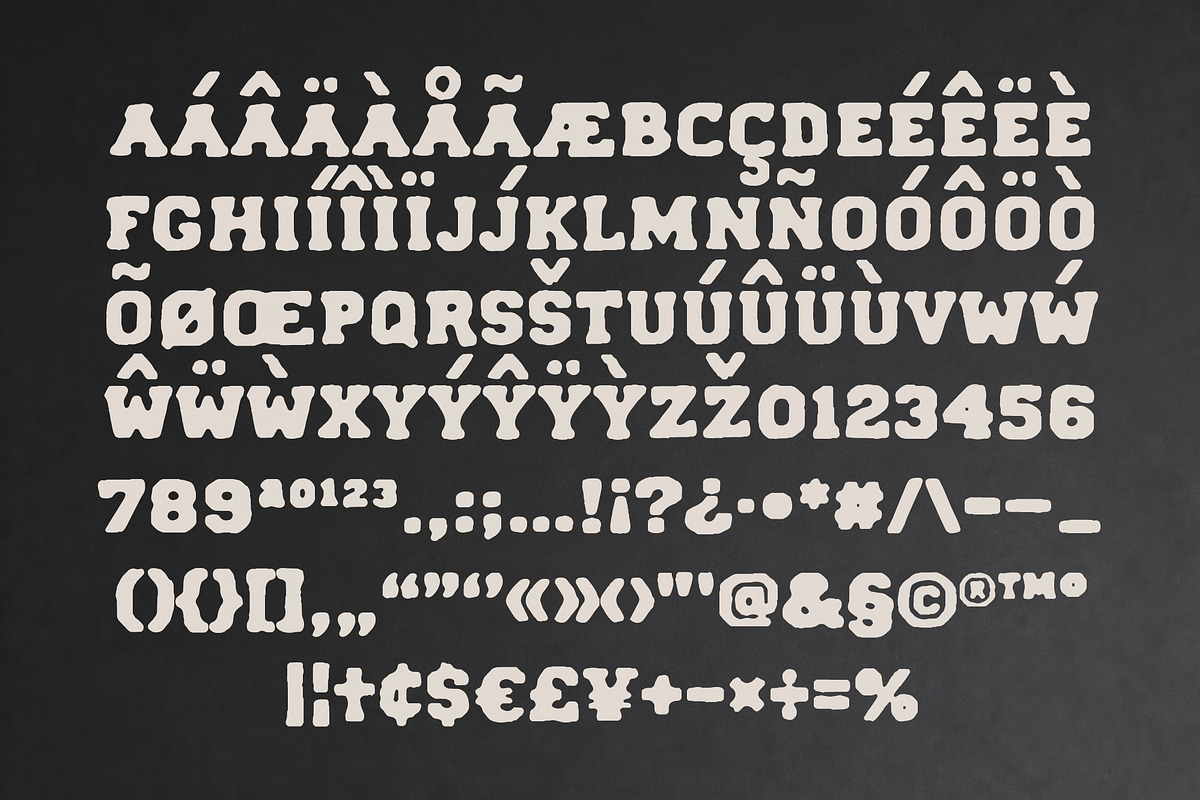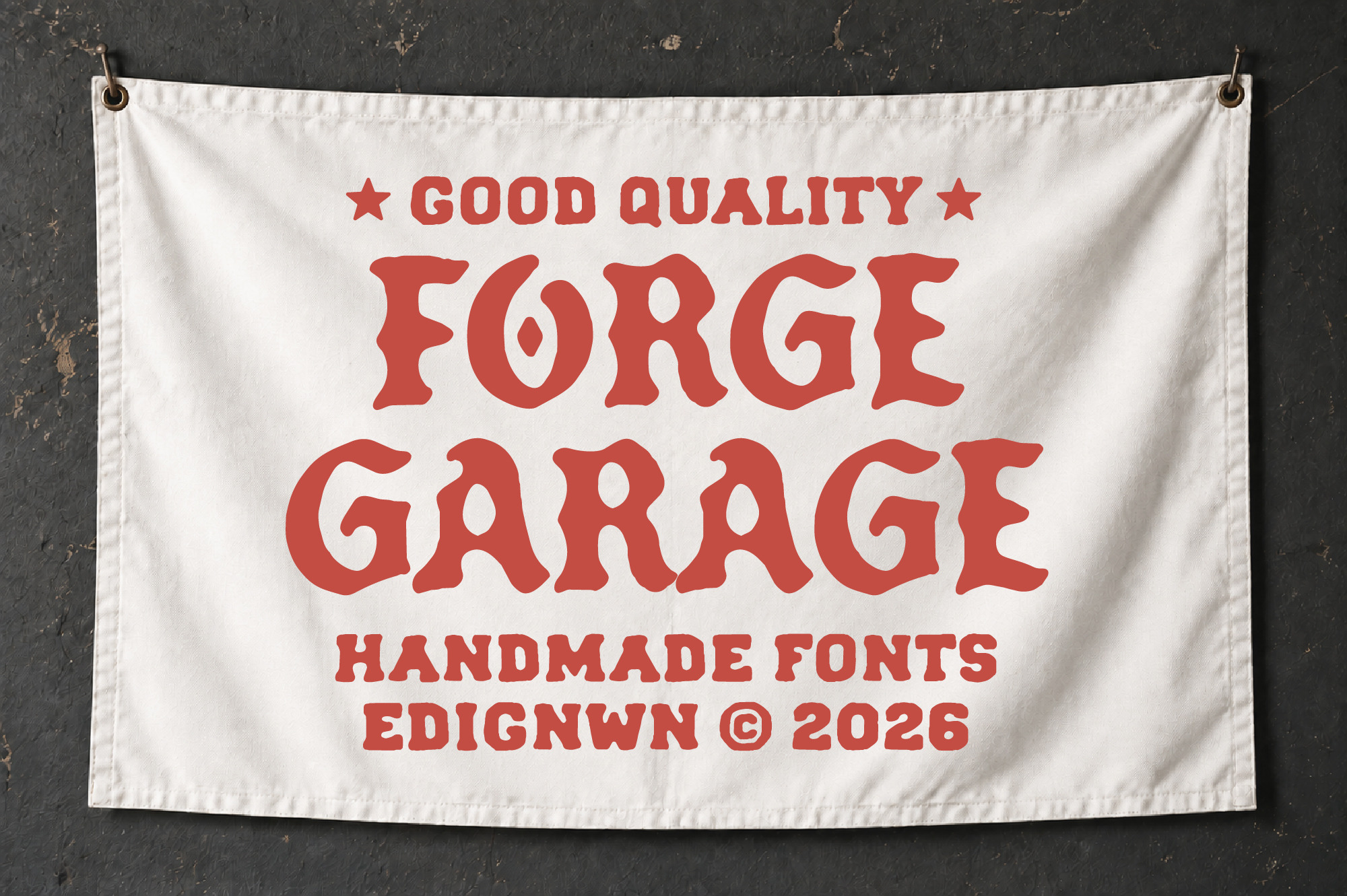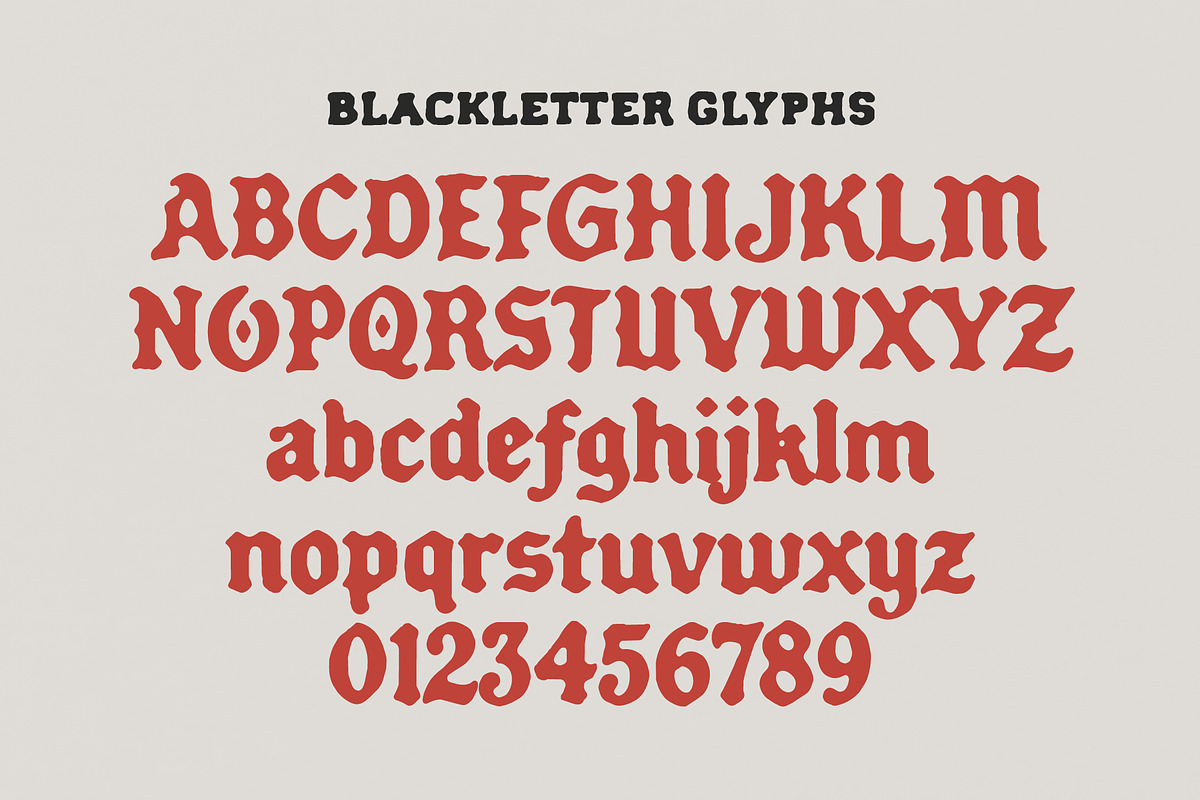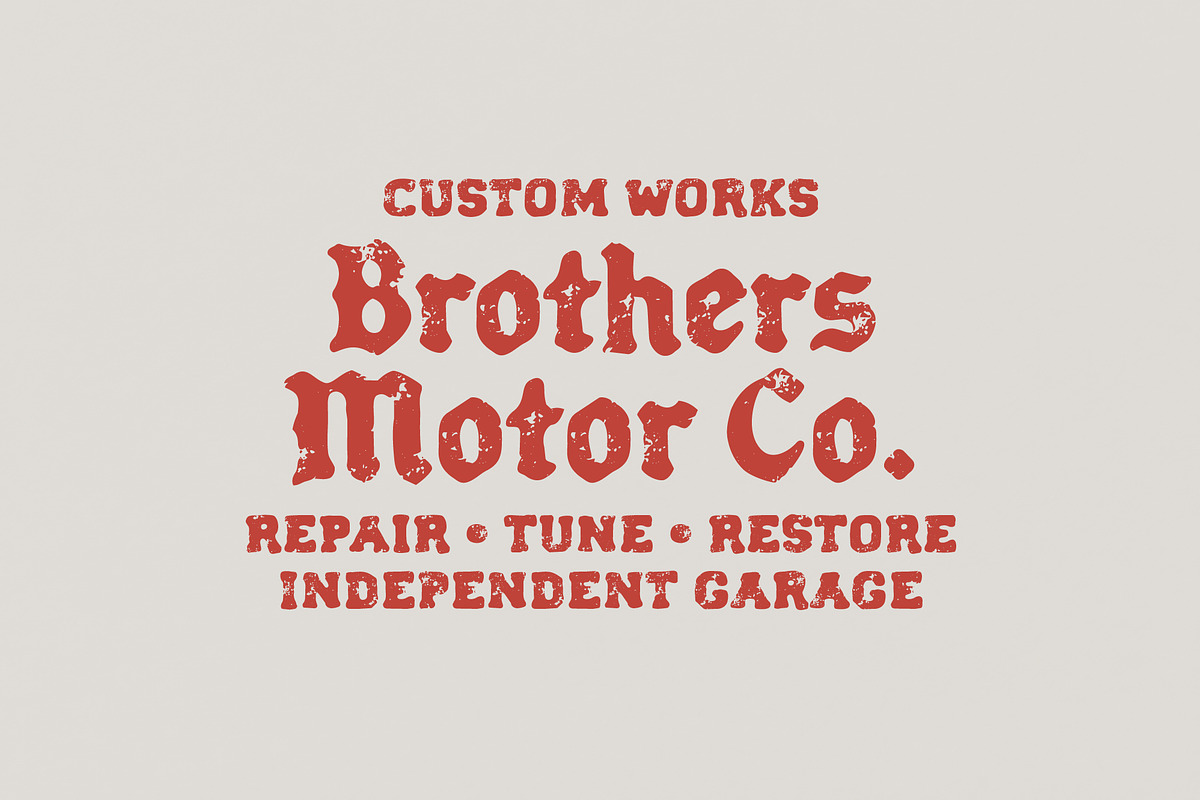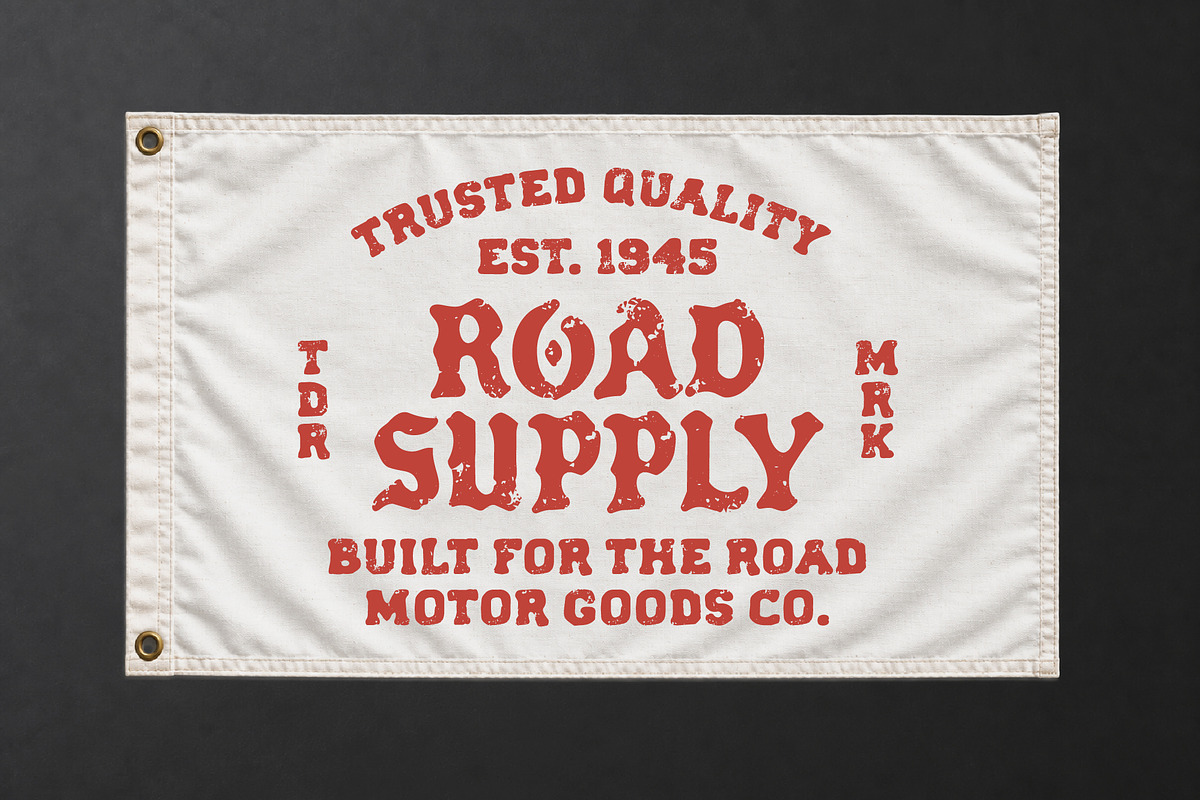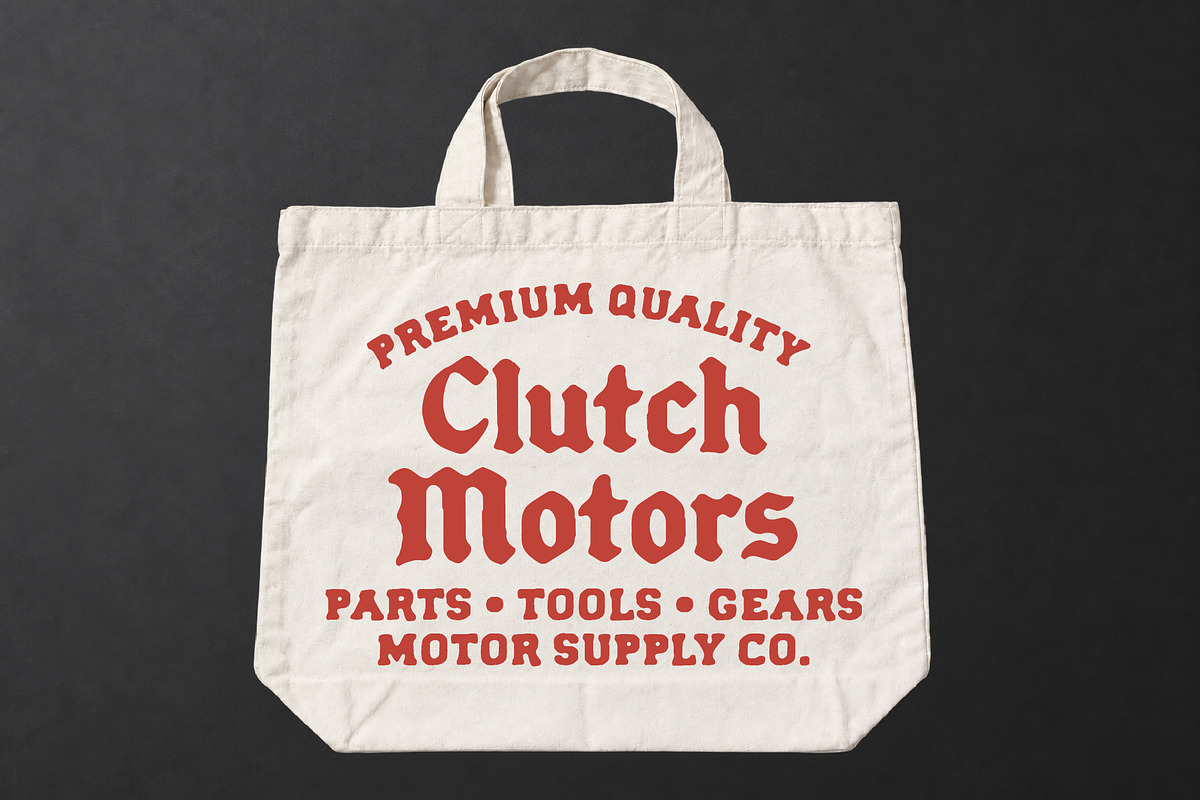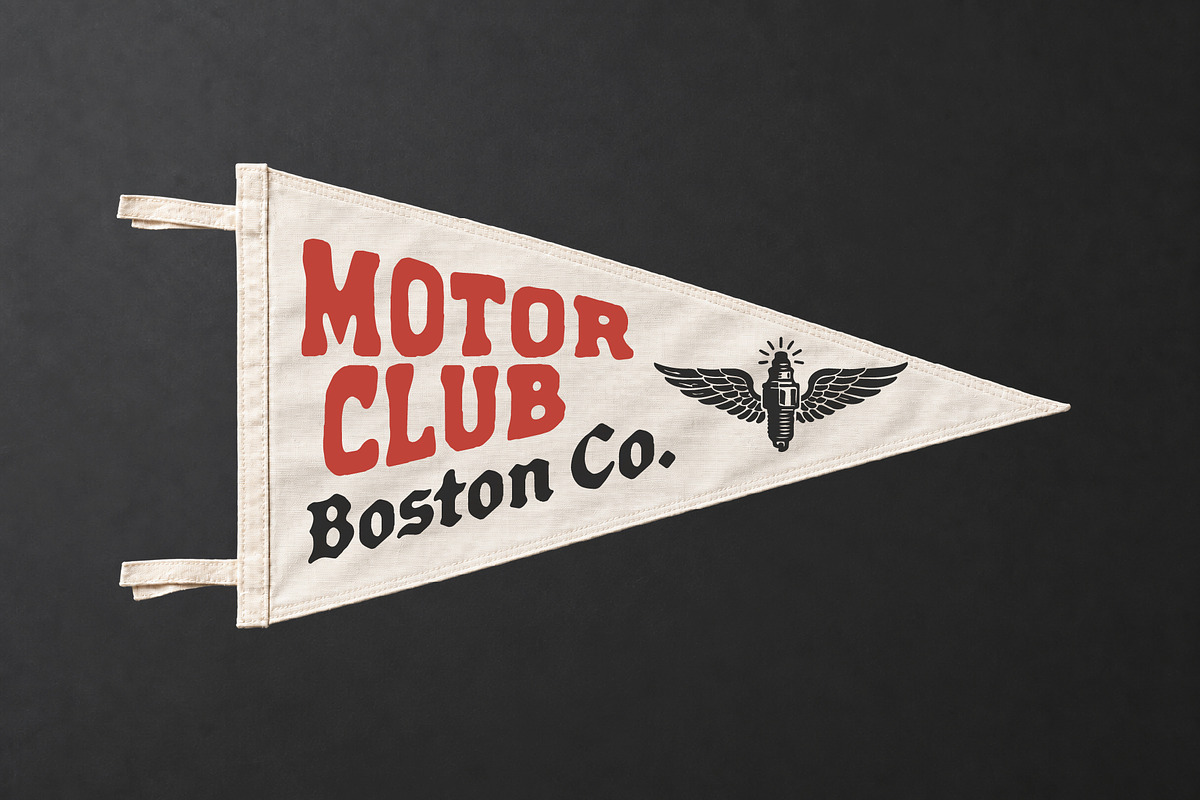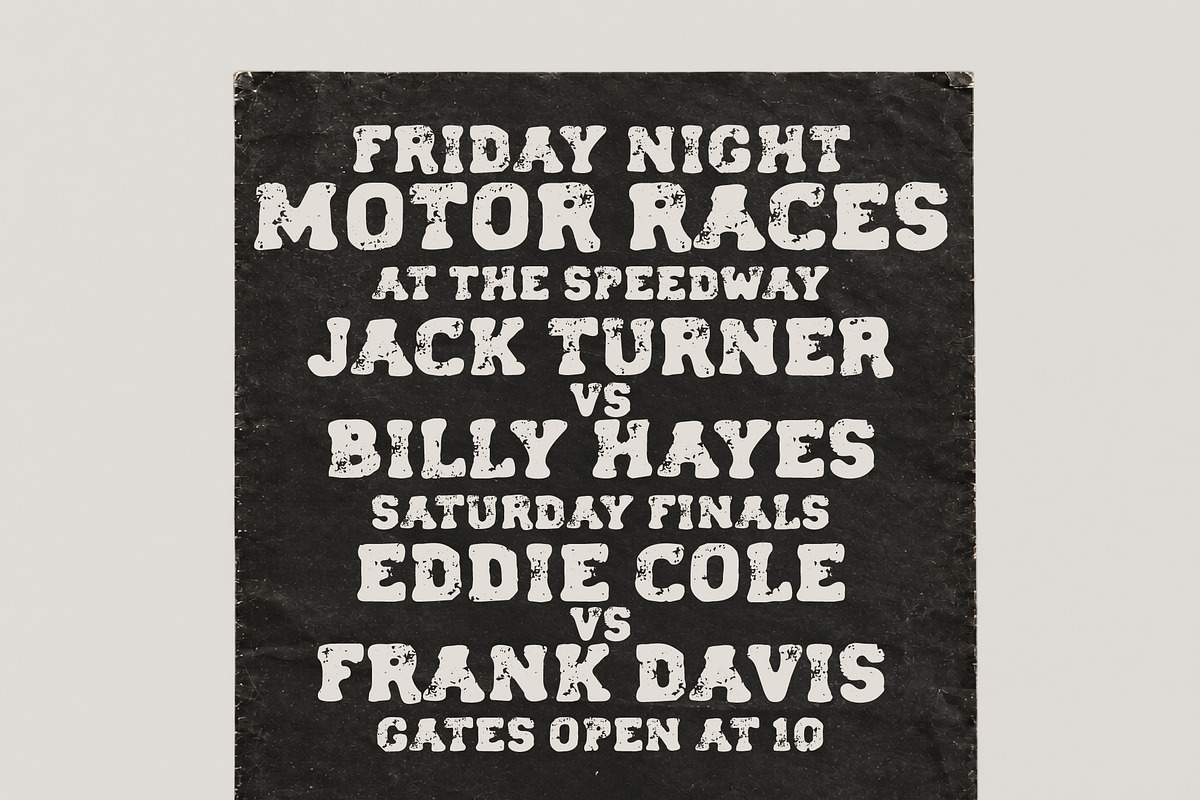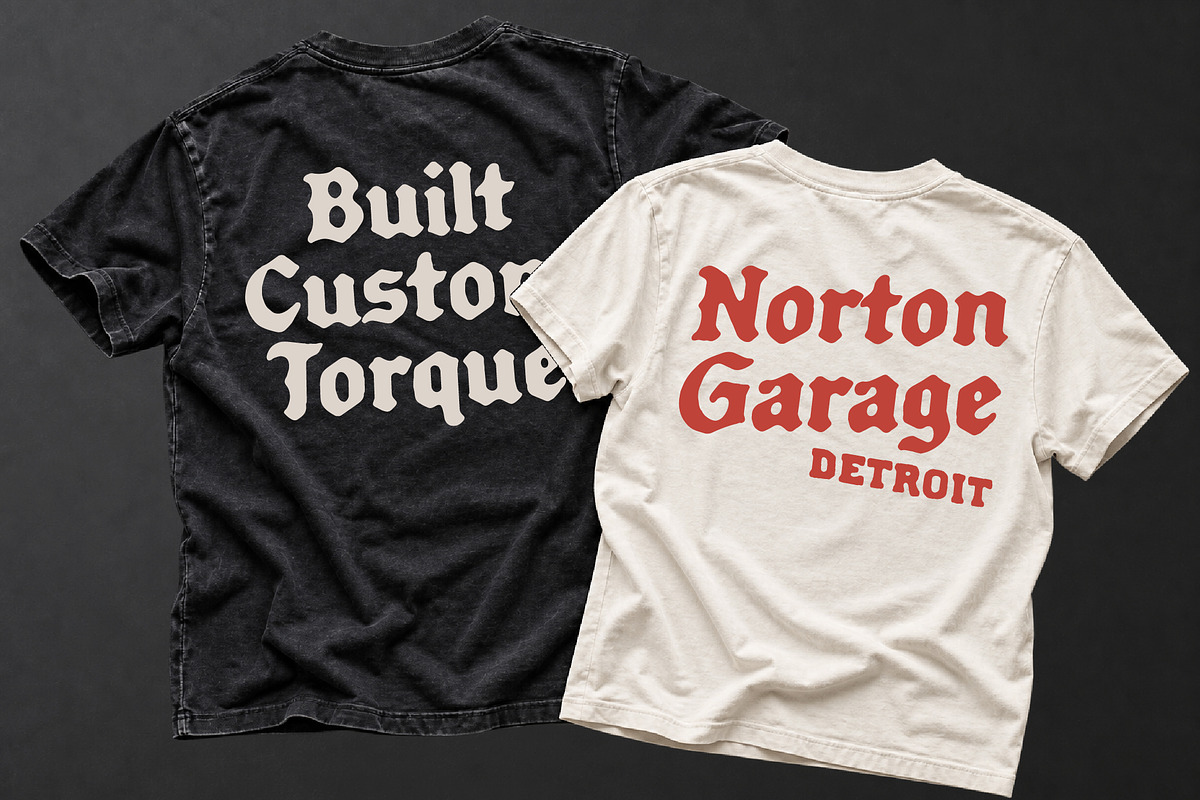
Forge Garage - Motorcycle Font Duo
Forge Garage is a bold blackletter and sans font duo with a handmade character inspired by motorcycle culture and independent garages. Designed for visual branding, it brings a sturdy, expressive feel to custom motorcycle logos, workshop signage, motor club graphics, apparel, packaging, and posters.
The blackletter combines gothic shapes with soft, irregular edges, while the chunky sans adds weight and clarity to headlines and supporting text. Each typeface comes in Regular and Textured styles, giving you solid lettering or a worn ink finish for designs with a vintage workshop feel.
Forge Garage includes:
2 typefaces: Forge Garage Blackletter and Forge Garage Sans
4 fonts: Regular and Textured styles for each typeface
Blackletter: uppercase, lowercase, numerals, symbols, and punctuation
Sans: all-caps, numerals, symbols, and punctuation